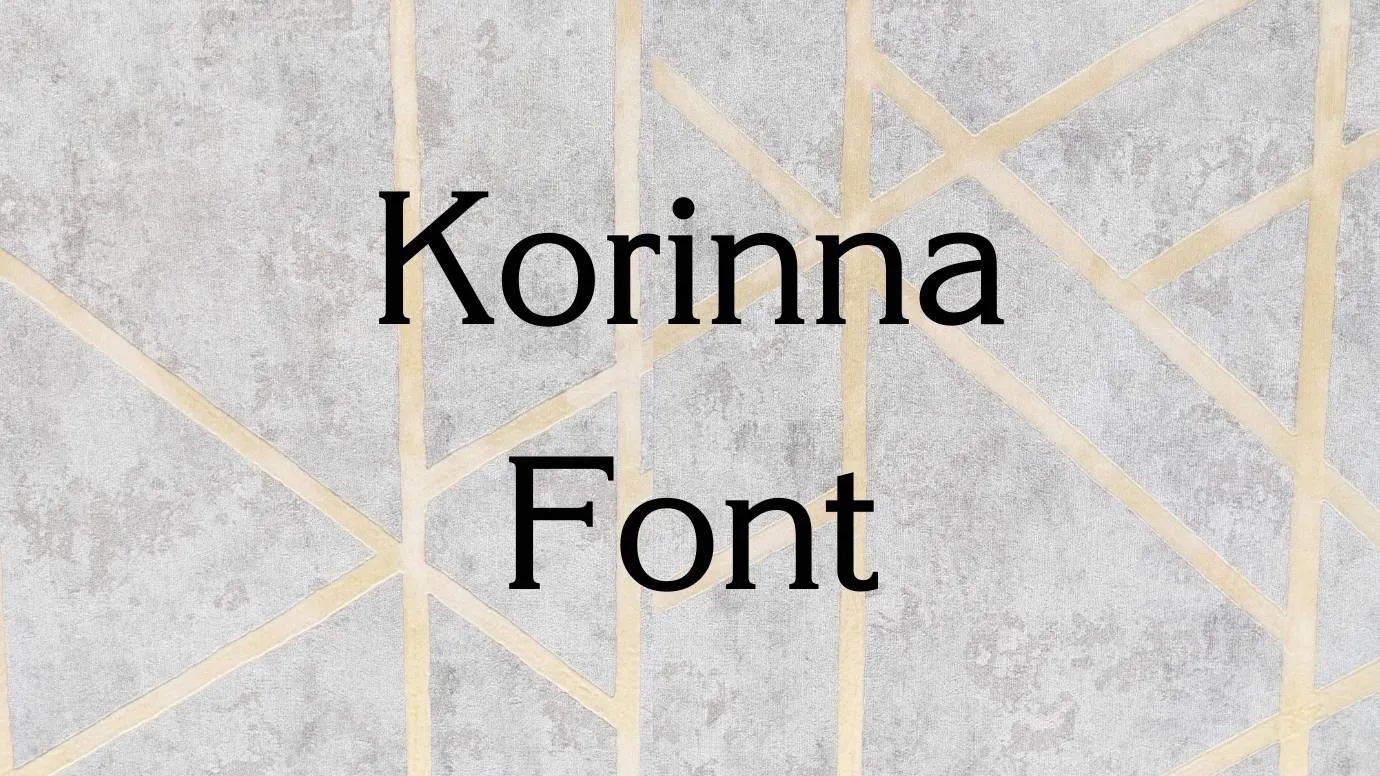
Korinna Font Family is a famous typeface that was designed by two popular designers Edward Benguiat and Victor Caruso known as Korinna Font. It was released by International Typeface Corporation in January 2000 that’s why it is popular all over the world.
Due to its bold look, It comes in different styles and every style makes an amazing shape with a unique look. It is easily adjustable in other font families like Bodoni XT Font and Salome Font due to its neat and clean texture.
Korinna Font
TypeSerif
DesignerEdward Benguiat and Victor Caruso